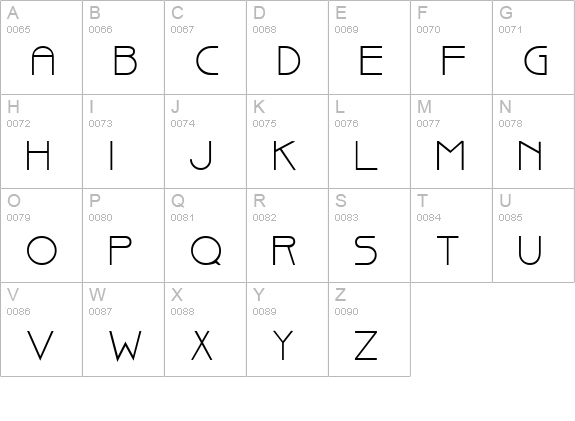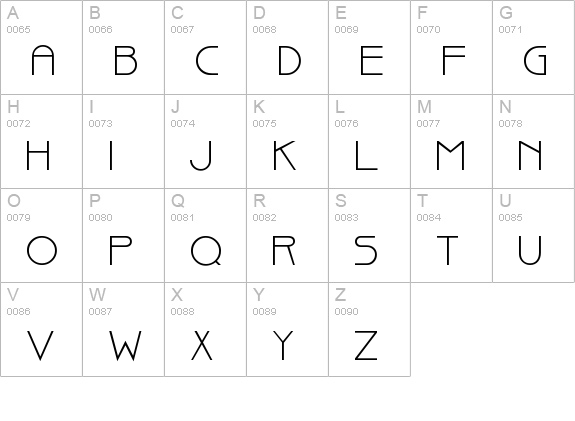
Bisque Regular Font Details
Bisque Regular is the standard, neutral variant in the Bisque typeface family \xE2\x80\x94 well suited to general body text, paragraphs, and standard typographic work.
Bisque Regular font is a charming and versatile typeface that combines elegance with readability. Its clean lines and balanced proportions make it suitable for a wide range of design projects, from branding to editorial layouts. The gentle curvature of the letterforms gives this font a warm and friendly feel, making it perfect for conveying a sense of approachability and sophistication. What sets Bisque Regular font apart is that it is not only beautifully crafted but also free for personal and commercial use. This means that you can use it in your projects without any restrictions or limitations. You can download Bisque Regular font for free at FontsMarket.com, where you'll find a vast collection of high-quality fonts to enhance your creative endeavors. Don't miss out on this opportunity to add a touch of elegance to your designs with the exquisite Bisque Regular font.